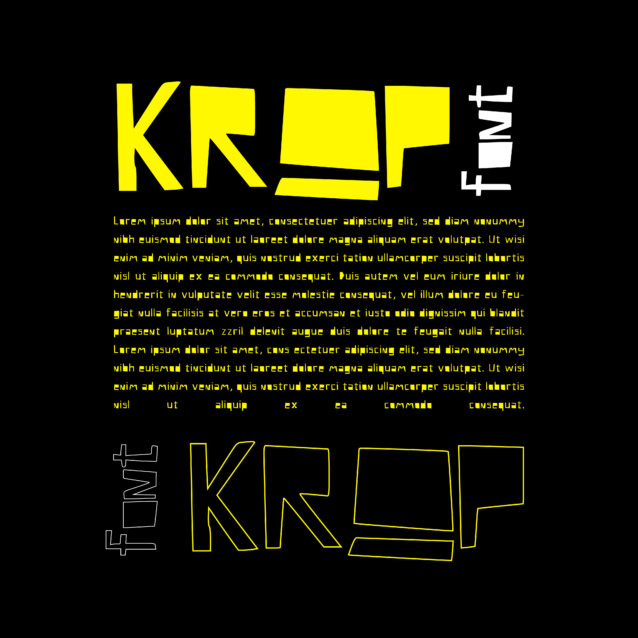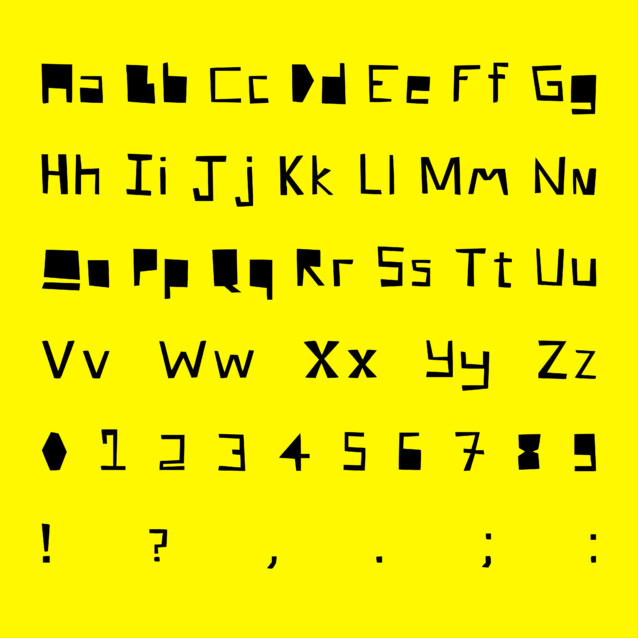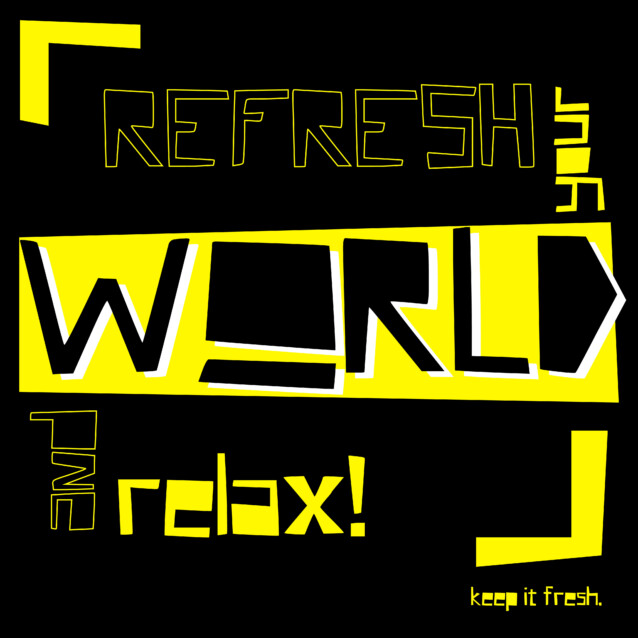
Krop Display Font
Krop Display Font is a geometric font, not serious at all. Ideal for logos, handwritten quotes, product packaging, header, poster, merchandise, social media & greeting cards.